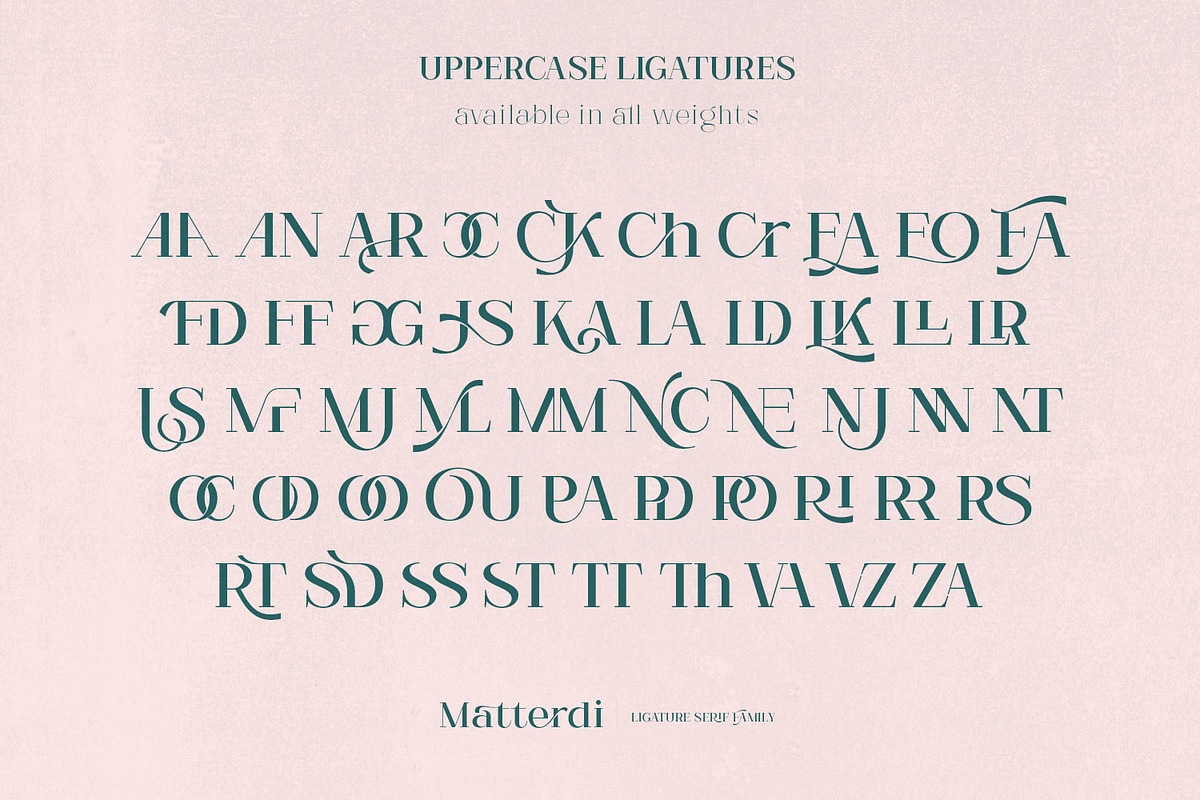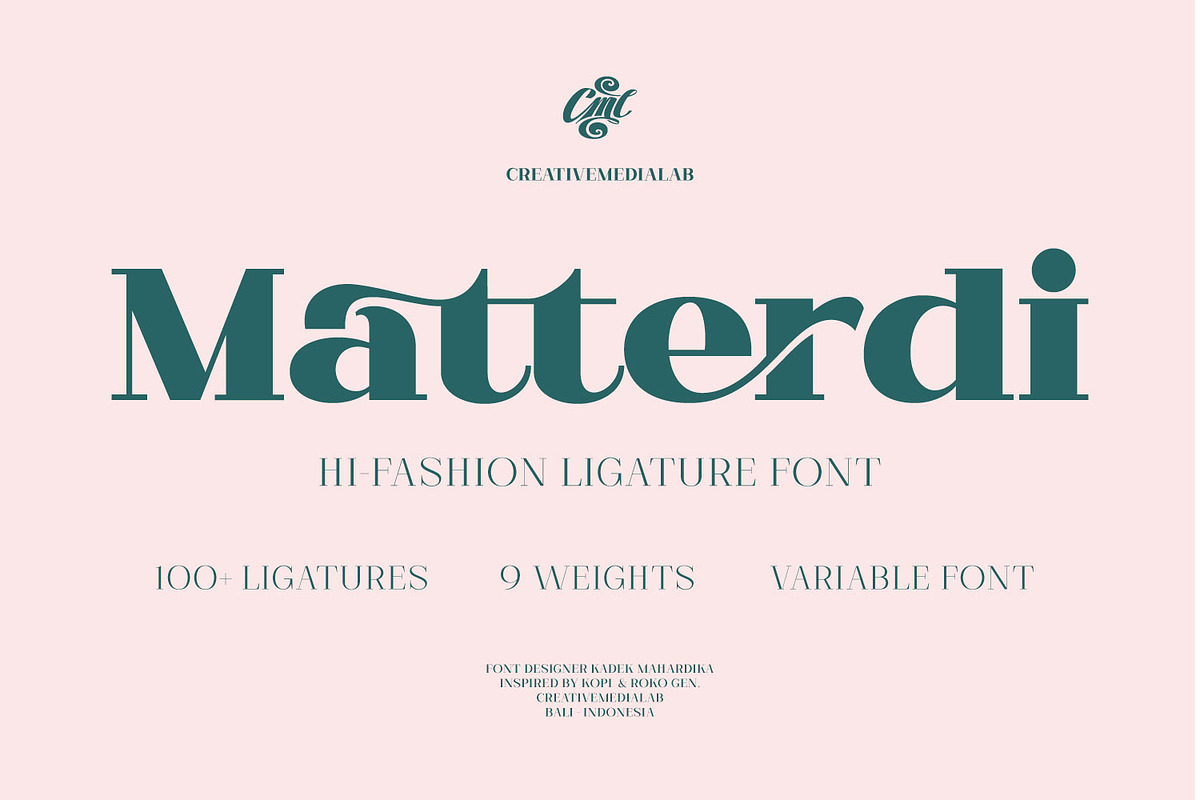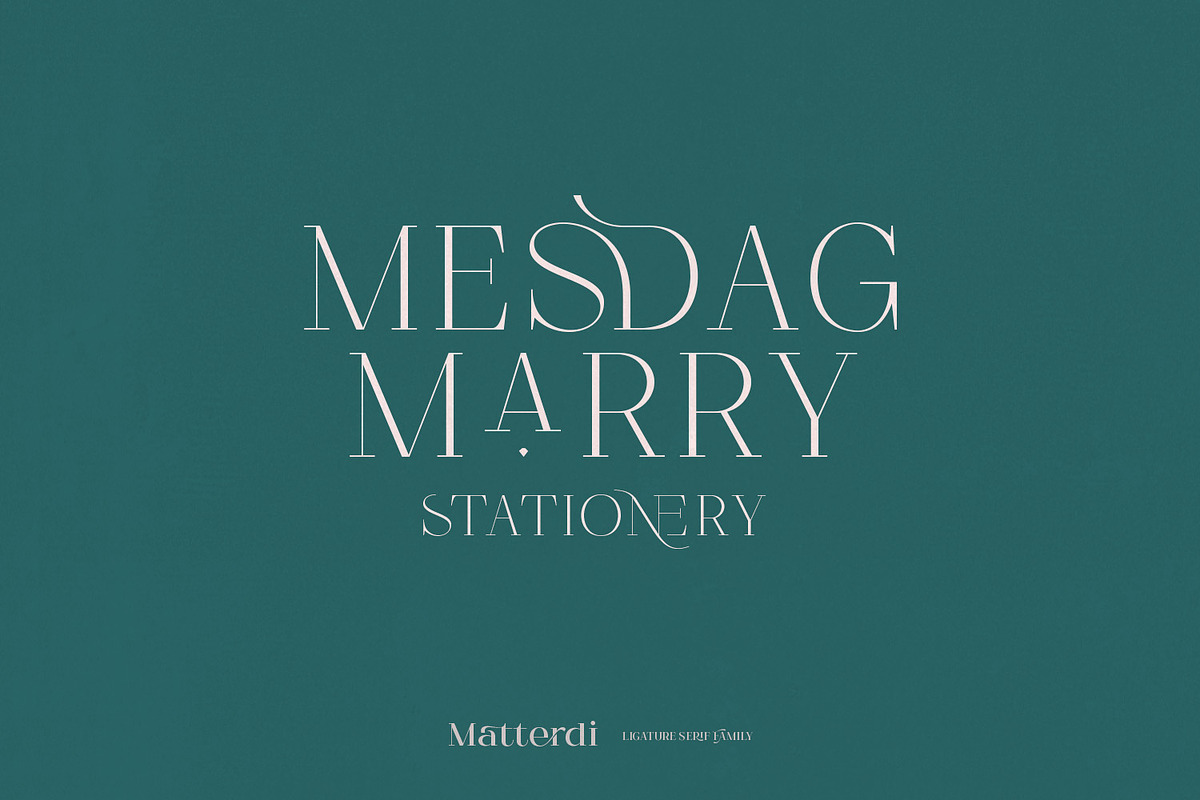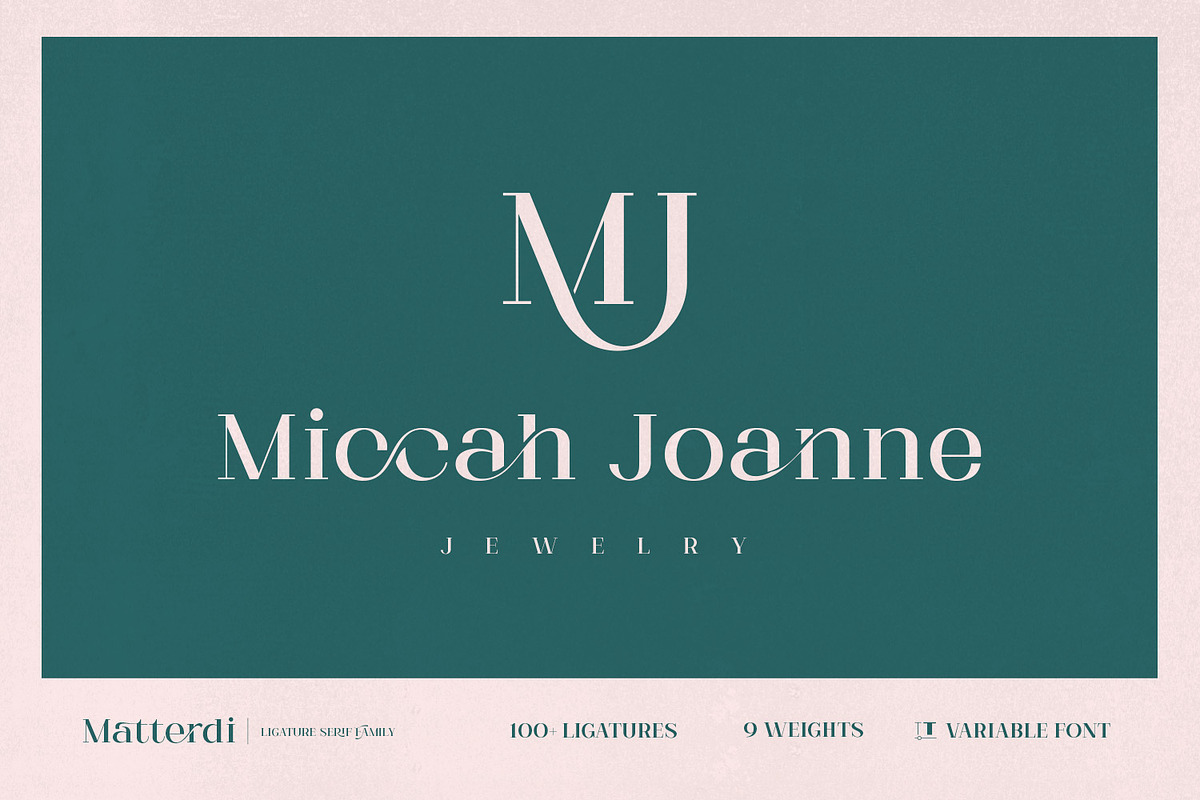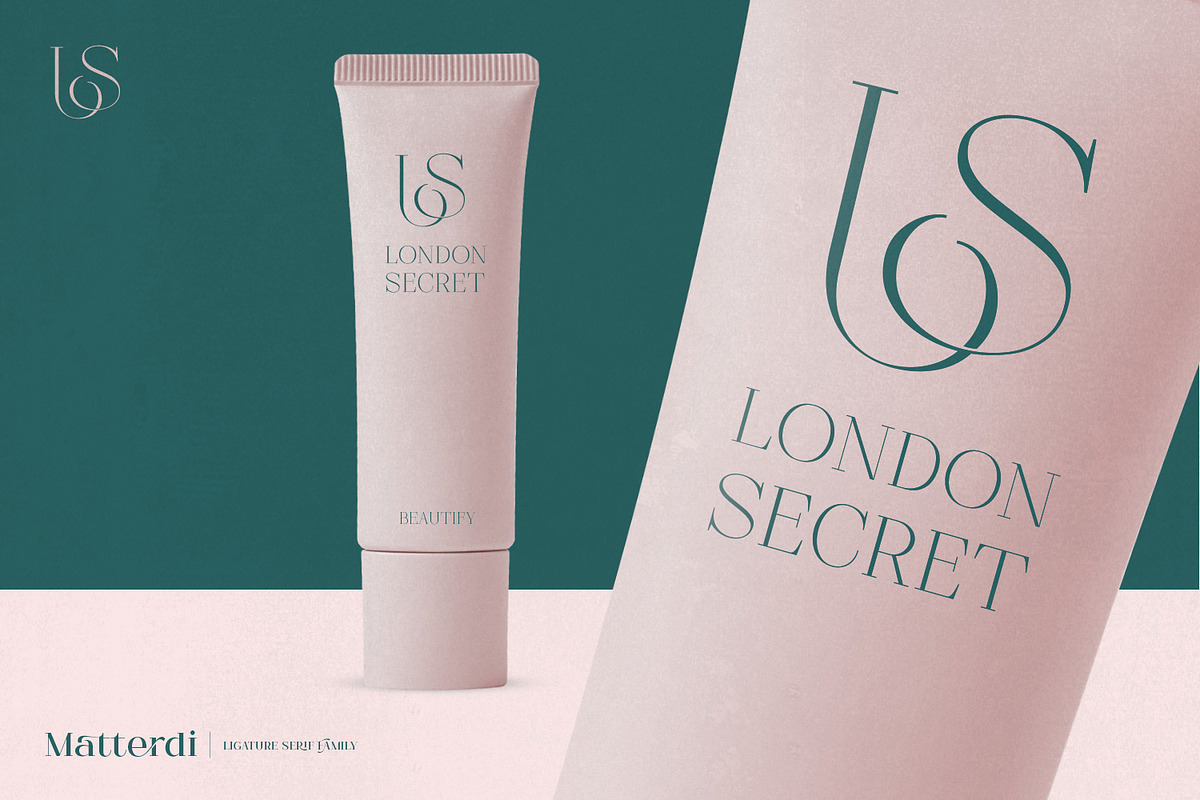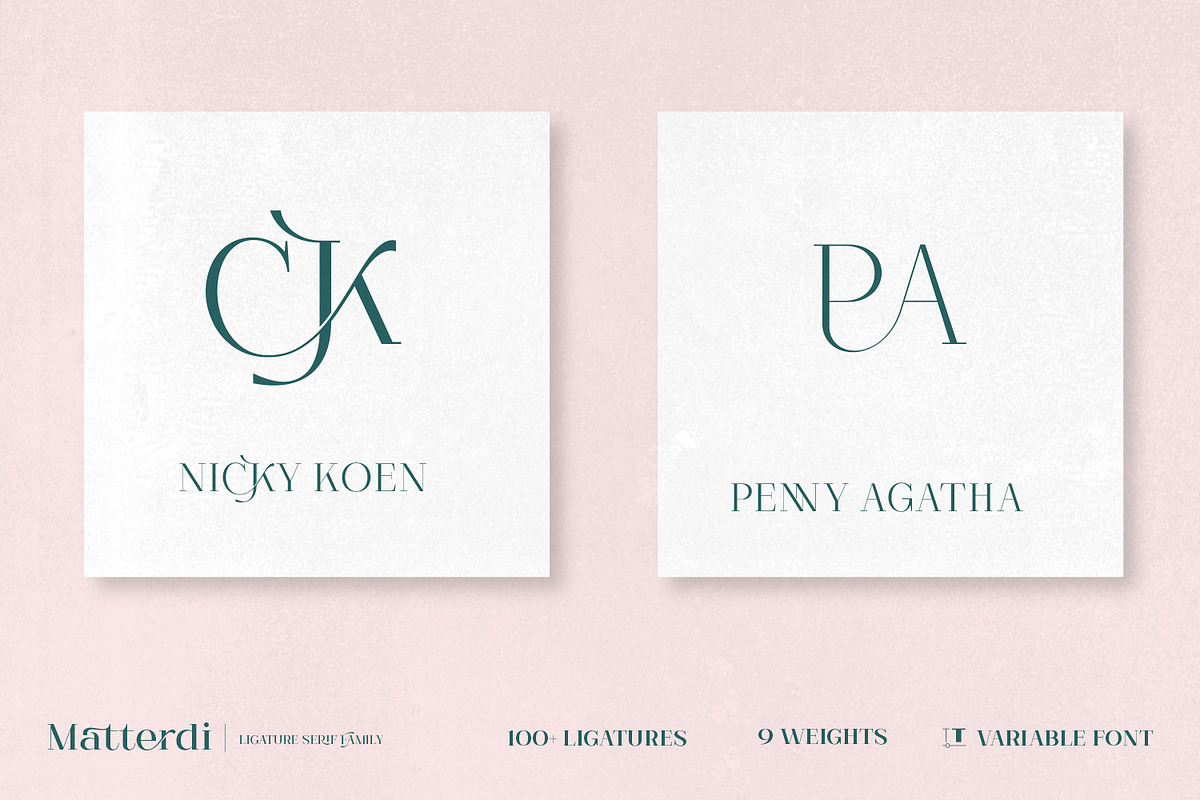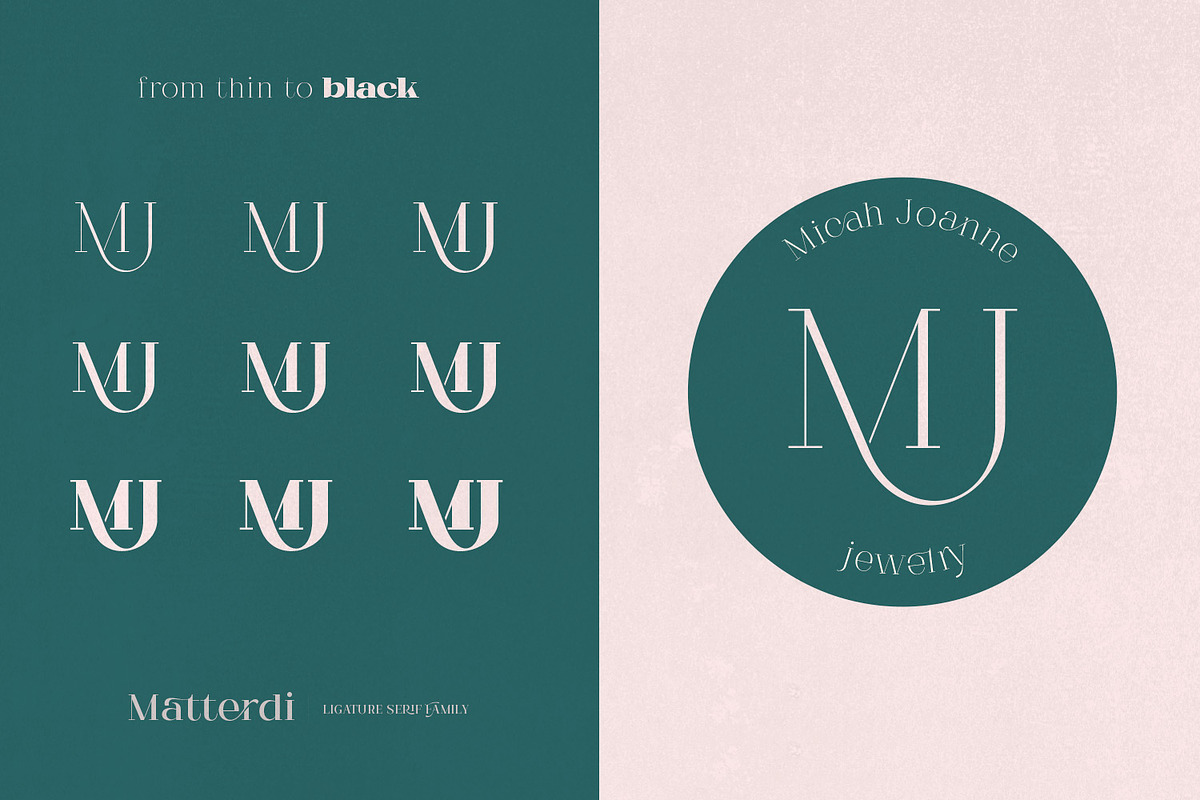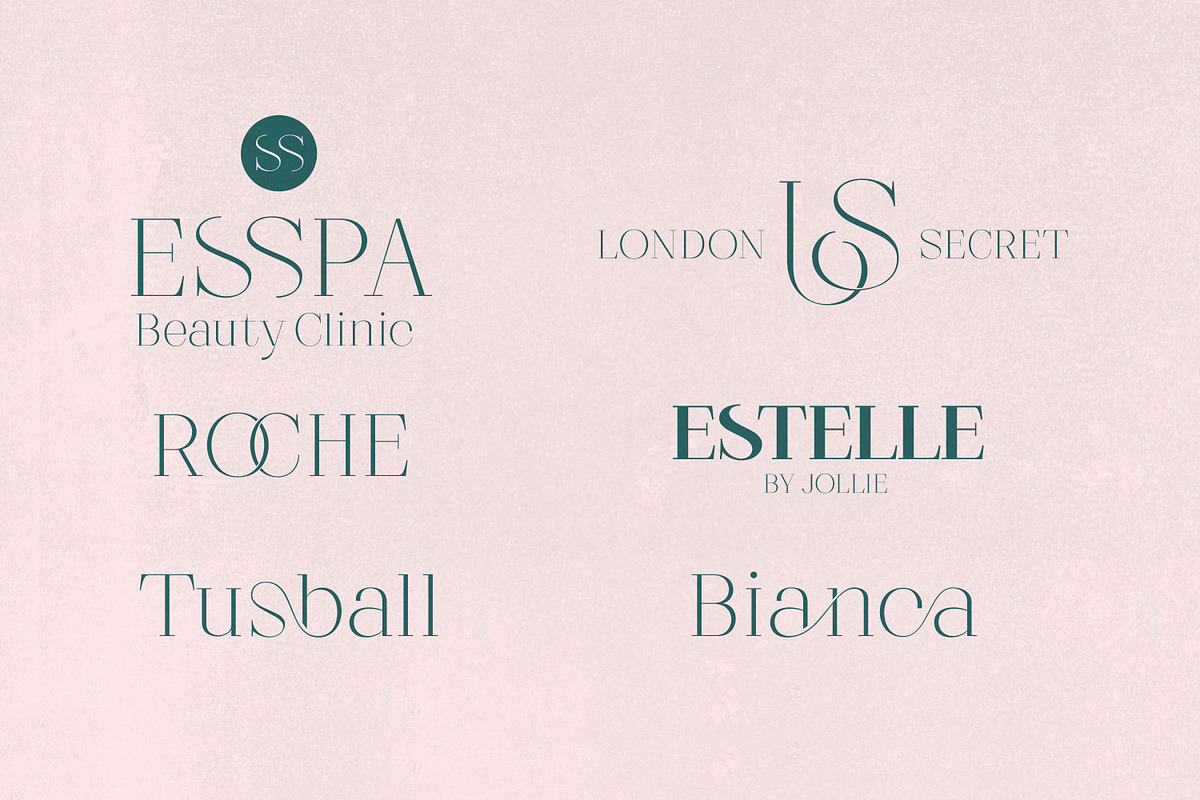
Matterdi | Hi-fashion ligature font
Introducing Matterdi, a High-Fashion Elegant serif family with tons of unique and fashionable ligatures.
This versatile serif family contains 100+ unique, elegant ligatures and alternates. 9 weights available from thin to black which makes many possible layout for your next projects. for word-mark, monograms, logo, branding projects, or to use a web font.
Try Matterdi Bold for display title or Matterdi Thin for a fashionable and elegant look, it also perfect to pair with a hand-drawn script!